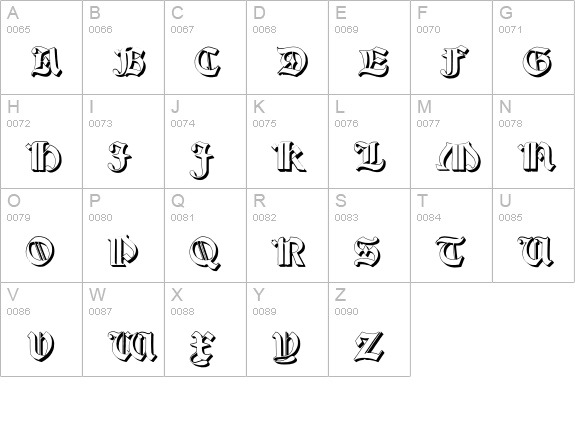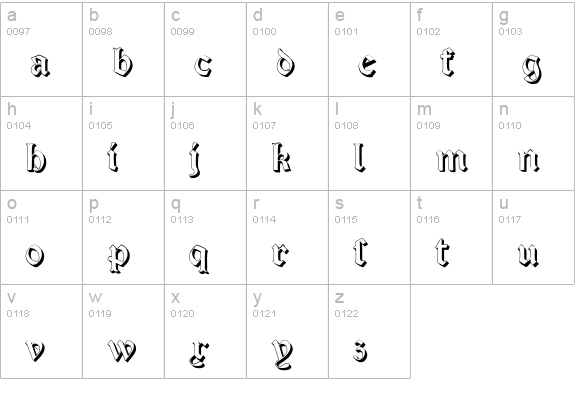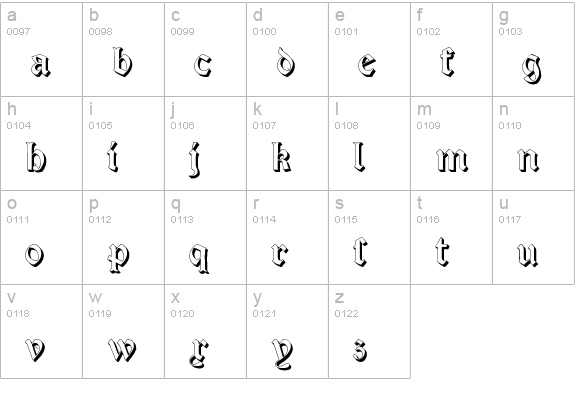
Salterio Three Font Details
Salterio Three is a captivating and versatile font that effortlessly combines elegance with a touch of playfulness. Its unique design features smooth curves and stylish flourishes that add a distinctive charm to any project it graces. This font's well-balanced letterforms make it a perfect choice for a wide range of applications, including branding, packaging, headlines, and more. One of the standout features of Salterio Three is its incredible versatility. It can adapt seamlessly to both modern and traditional design styles, making it suitable for various creative endeavors. Whether you're aiming for a sophisticated and refined look or a whimsical and fun vibe, this font has got you covered. What sets Salterio Three apart from many other fonts is that it is available for free. Yes, you read that right! This stunning typeface is freely available to download at FontsMarket.com. Now you can enjoy the beauty and elegance of Salterio Three without breaking the bank. Designed with precision and attention to detail, Salterio Three ensures legibility even at smaller sizes, making it ideal for both print and digital use. Its clean lines and carefully crafted letterforms guarantee clarity and readability, regardless of the medium. With its wide range of weights and variations, Salterio Three offers endless possibilities for creative expression. Whether you're looking for a bold and eye-catching headline or a delicate and graceful script, this font delivers it all. Its versatility and flexibility make it an invaluable asset for designers, allowing them to bring their visions to life with ease. So why wait? Discover the beauty and versatility of Salterio Three today. Download it freely at FontsMarket.com and unlock a world of design possibilities. Elevate your projects to new heights with this stunning font that seamlessly blends elegance and playfulness.